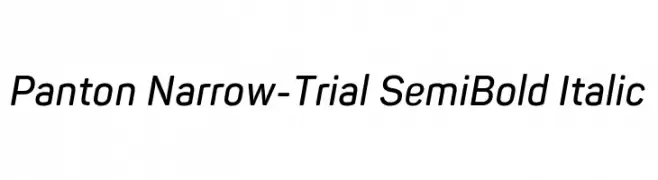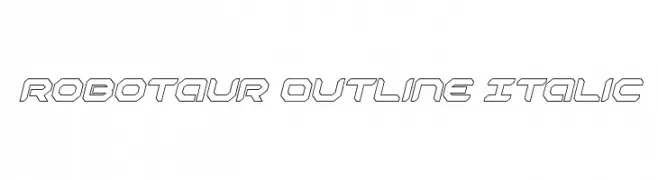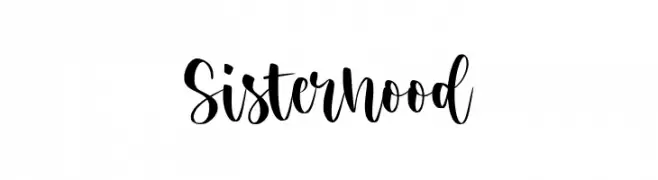
A modern, geometric font with clean lines and angular shapes.
A modern, narrow, semi-bold italic font with a sleek and dynamic style.
A modern, elegant script font with fluid, connected letterforms.
A modern cursive font with elegant, flowing letterforms and stylish swashes.
A futuristic, geometric outline font with italicized, angular characters.
A playful, rounded font with smooth curves and consistent stroke width.
A sleek, modern italic font with a light and airy design.
A modern, geometric font with a playful touch in its lowercase letters.
A lively and elegant script font with fluid, connected letterforms and expressive strokes.
A playful, rounded font with a modern and friendly style.